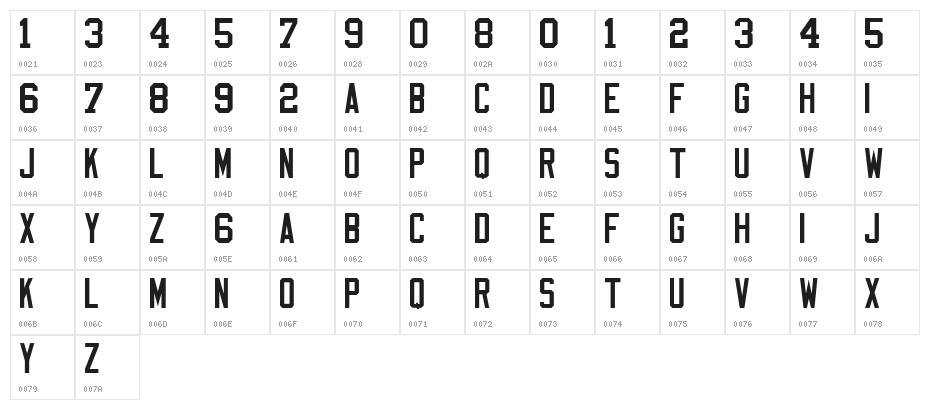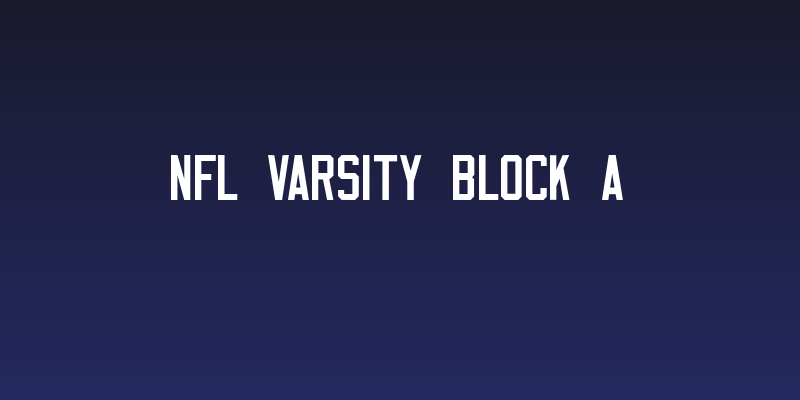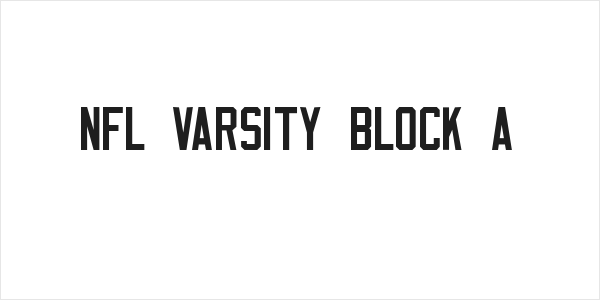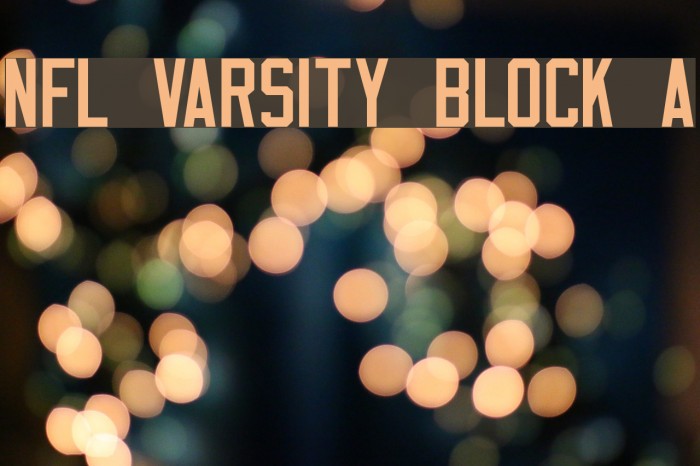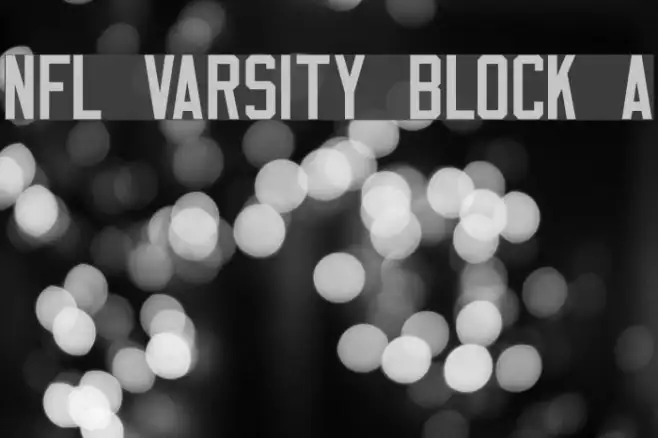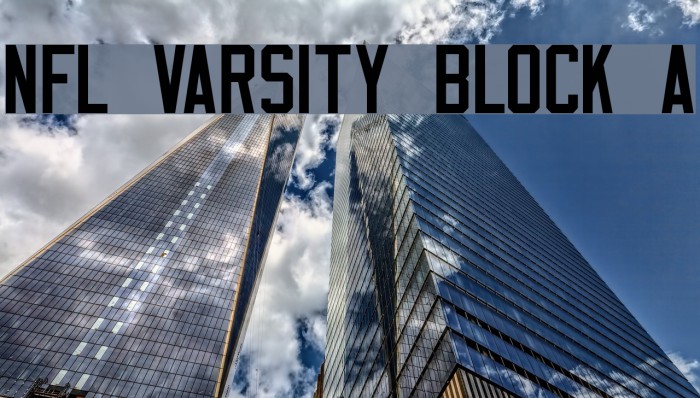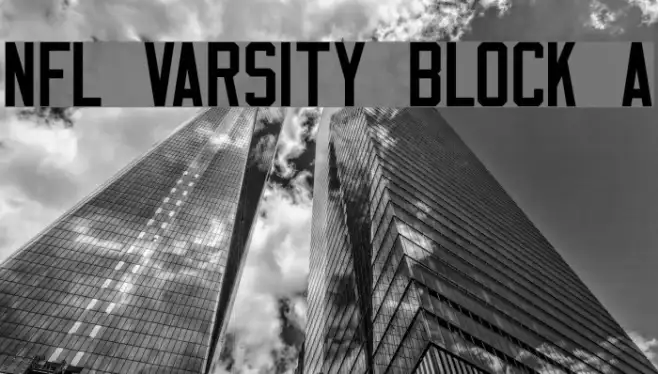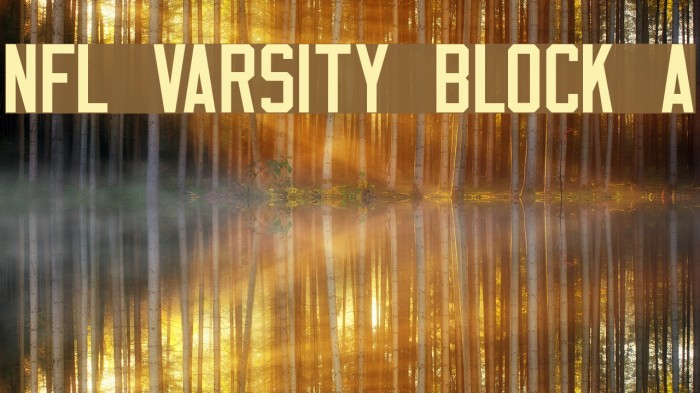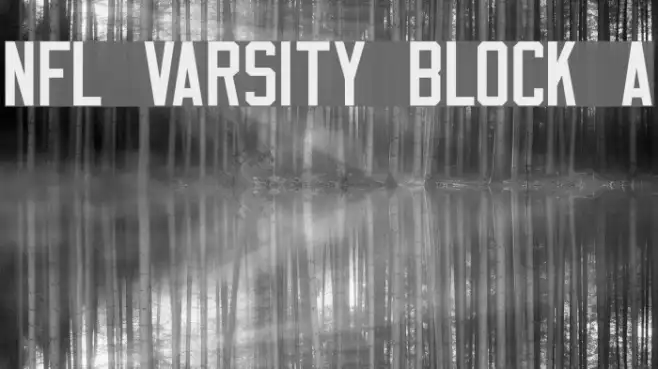
NFL Varsity Block A Font
NFL Varsity Block A Description
This font features a bold, blocky style reminiscent of traditional varsity and sports lettering. The characters are all uppercase, with a strong geometric structure and sharp angles, giving them a commanding presence. The font is designed to convey strength and authority, making it ideal for sports-related projects. The numbers and letters are consistent in height and width, maintaining a uniform appearance across all characters. The font's boldness ensures high visibility and readability, even from a distance, making it suitable for signage and other applications where clarity is crucial.
| Overall Style | Classic |
| Proposed Projects | Ideal for sports team branding, event posters, merchandise, and signage. |